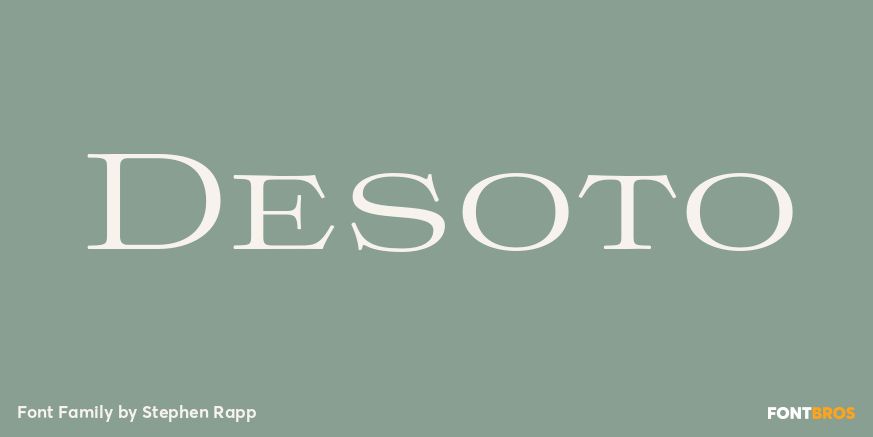
Desoto
Warm and inviting? DeSoto is a titling face sure to ad a touch of grace to many projects. Its name and inspiration come from a few letters in a 1958 DeSoto magazine advertisement. Many automobile ads back then used wide faces to create a feeling of luxury…